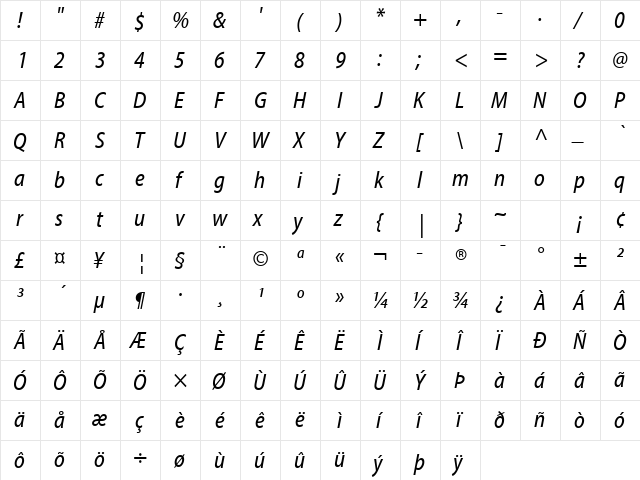
Myriad Web Pro Condensed Italic Font Preview
| Foundry | Adobe Systems Incorporated |
| Designer | Robert Slimbach and Carol Twombly |
Design Context for Myriad Web Pro Typeface
Myriad Web Pro is a composed and adaptable typeface that performs quietly and consistently across a wide range of design contexts. Its italic angle brings a sense of urgency and motion to the letterforms. The condensed width makes it efficient for tight spaces without sacrificing legibility.
Pro Tip: Try Myriad Web Pro for annotation and caption copy alongside an upright companion — the contrast in angle creates a dynamic but ordered typographic system.